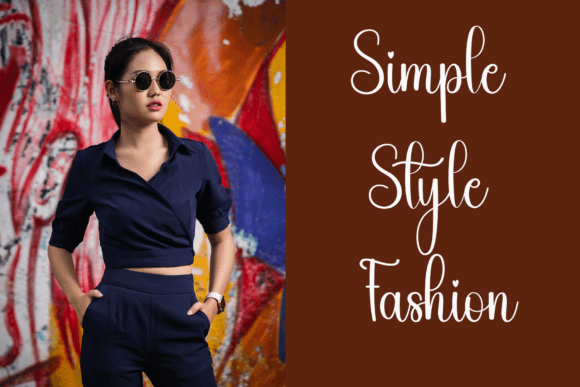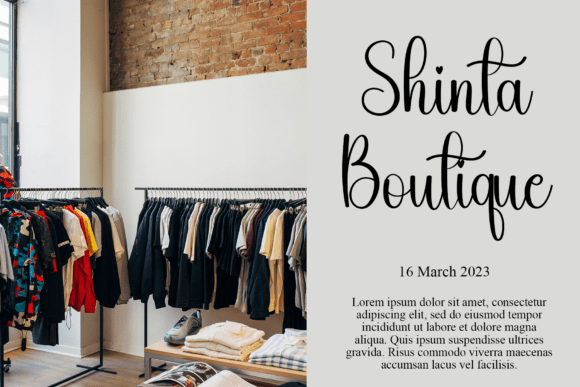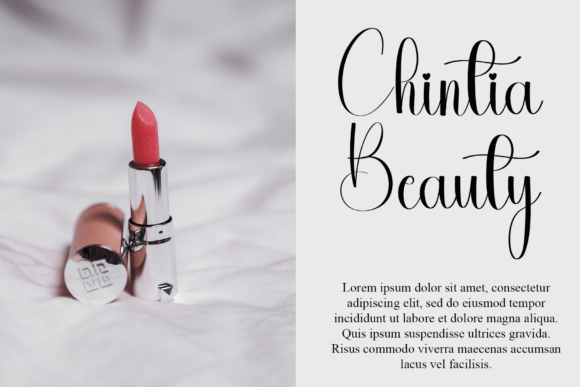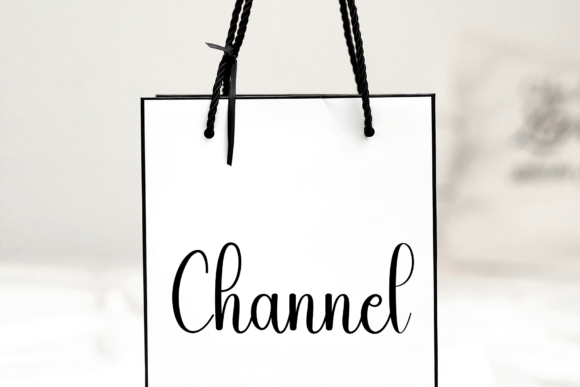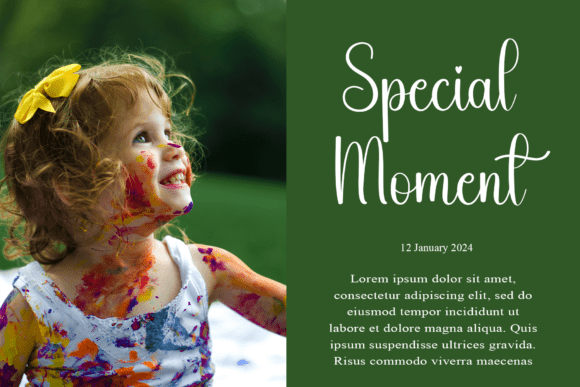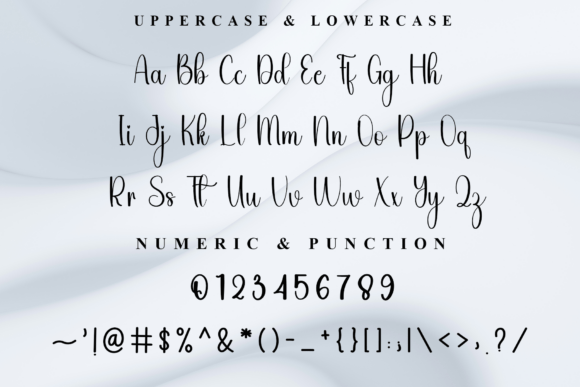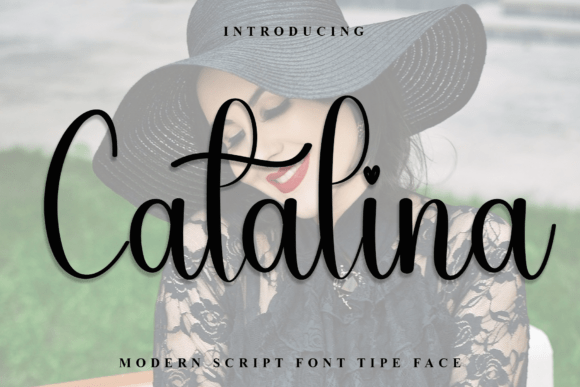
Catalina Font: The Ultimate Holiday Typeface for Your Festive Designs
The holiday season is upon us, and what better way to get into the spirit than with a font that’s as festive and merry as Catalina? This enchanting typeface is designed to bring a touch of magic to your designs, making it perfect for greeting cards, gift tags, and holiday-themed projects. In this article, we’ll dive into the world of Catalina Font and explore its features, benefits, and uses.
Catalina Font is a decorative typeface that embodies the spirit of the holiday season. Its whimsical flair and intricate details make it a standout among other fonts, adding a touch of enchantment to your designs. Whether you’re creating greeting cards, invitations, or social media posts, Catalina Font is sure to bring a smile to your audience’s faces.
Catalina Font is specifically designed for holiday-themed projects, making it the perfect choice for designers and crafters who want to create festive and engaging content. Its decorative elements and nostalgic ambiance evoke a sense of warmth and coziness, perfect for wrapping up your audience in the spirit of the season.
• Festive and merry design: Catalina Font is designed to capture the spirit of the holiday season, making it perfect for festive and engaging content.
• Decorative elements: The font features intricate details and decorative elements that add a touch of enchantment to your designs.
• Whimsical flair: Catalina Font has a playful and whimsical feel, perfect for creating engaging and fun content.
• Nostalgic ambiance: The font evokes a sense of warmth and coziness, perfect for wrapping up your audience in the spirit of the season.
Uses for Catalina Font
Catalina Font is versatile and can be used for a variety of projects, including:
• Greeting cards: Create festive and engaging greeting cards for the holiday season.
• Gift tags: Add a touch of magic to your gift tags with Catalina Font.
• Holiday-themed projects: Use Catalina Font to create festive and engaging content for social media, blogs, and websites.
• Invitations: Create festive and inviting invitations for holiday parties and events.
Catalina Font is a festive and merry typeface that’s perfect for holiday-themed projects. Its decorative elements, whimsical flair, and nostalgic ambiance make it a standout among other fonts. With its PUA encoding, it’s easy to access all of the amazing glyphs and ligatures, making it simple to incorporate into your designs. Whether you’re a designer or crafter, Catalina Font is sure to bring a touch of magic to your creations.